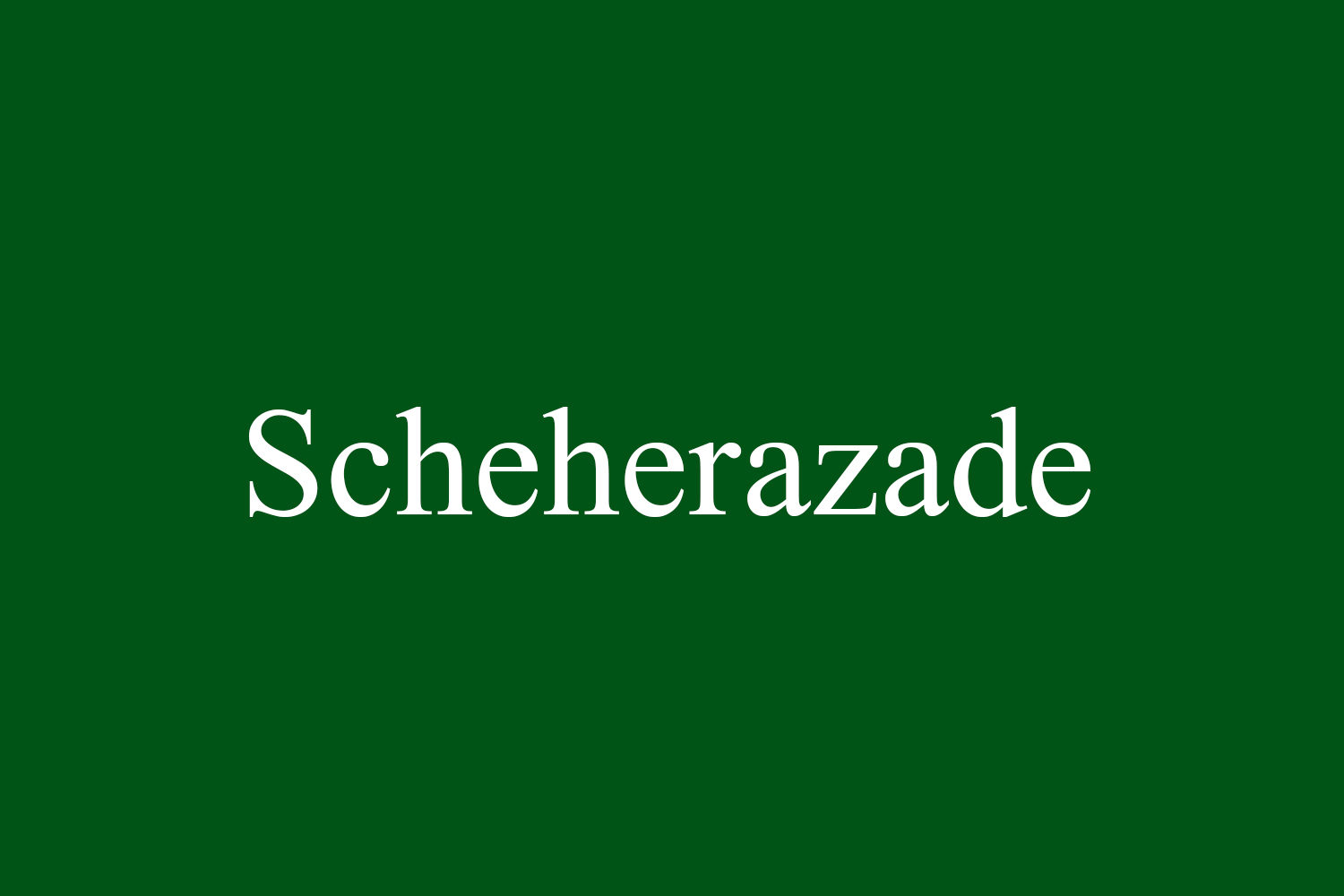
Scheherazade Free Font named after the heroine of the classic Arabian Nights tale is designed in a similar style to traditional typefaces such as Monotype Naskh and extended to cover the Unicode Arabic repertoire through Unicode 8.0.
Designed by SIL International